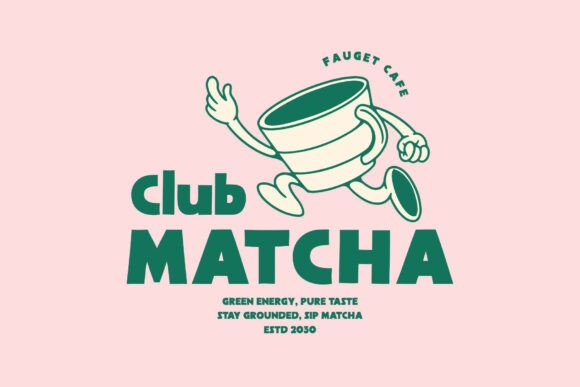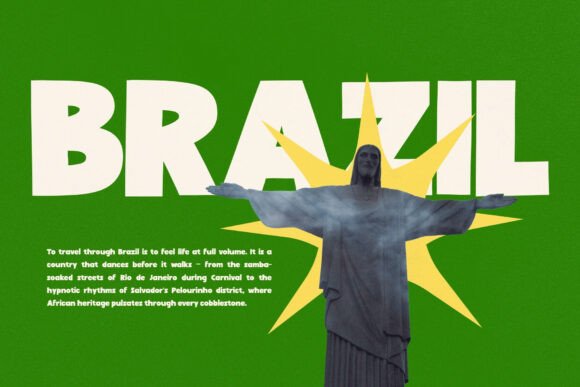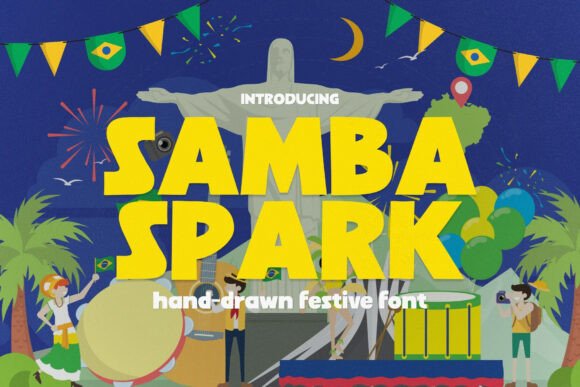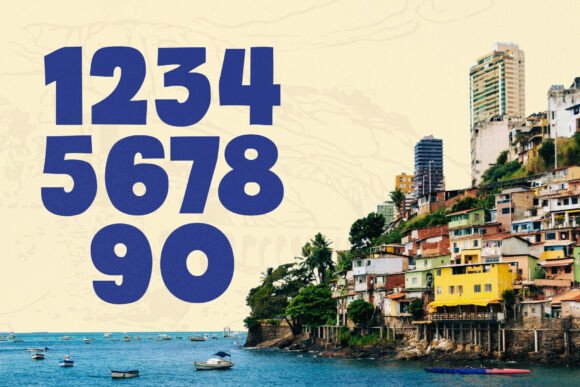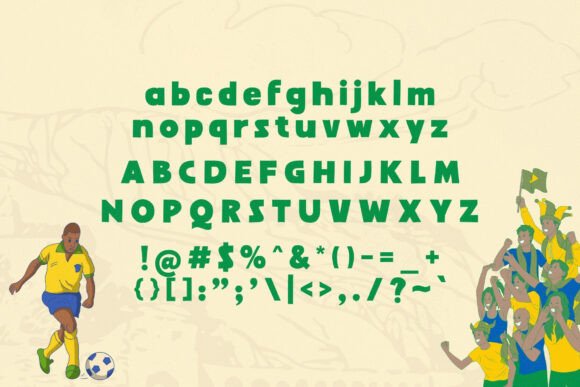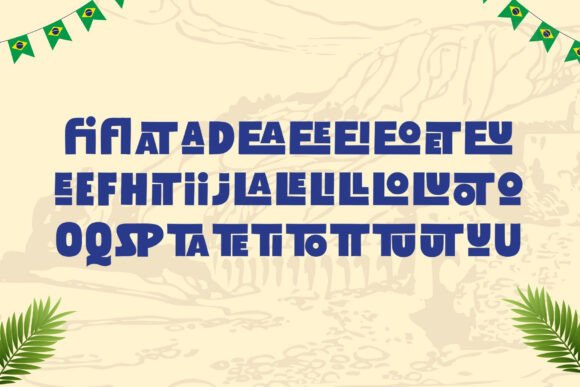
Introduction to Samba Spark Font
You’ve just landed the dream project – a music festival poster that needs to scream excitement and energy. You’re brainstorming ideas, sketching out concepts, and searching for the perfect design resource to bring it all together. That’s when you stumble upon Samba Spark Font – a vibrant, hand-drawn display typeface that radiates the spirit of global cultural celebrations.
With its lively personality and organic imperfections, Samba Spark Font is the perfect companion for designers looking to add a touch of celebration and creativity to their projects. Whether you’re working on a free download for a cultural festival, creating social media graphics for a music promotion, or designing packaging for a new product, this high-quality font is sure to bring energy and storytelling to every design.
Key Features of Samba Spark Font
- High-quality font with a unique, vibrant design perfect for creative projects.
Honest Review: Samba Spark Font
I recently had the chance to work with the Samba Spark Font, and I must say it’s been a great addition to my design resources. The free download was a pleasant surprise, and the transparent background made it easy to integrate into my creative project.
What works well is the high quality of the font, which really shines when used in bold, eye-catching headings. The unique design elements give it a modern feel that’s perfect for a wide range of creative projects.
- ✨ Great for bold, eye-catching headings
- ✨ Unique design elements add a modern feel
- ✨ High quality and easy to use
One limitation I noticed is that the font can be a bit overwhelming when used in large blocks of text. However, this can be easily mitigated by using it in conjunction with a secondary font.
Overall, I’m really impressed with the Samba Spark Font. It’s a valuable design resource that I’ll definitely be using again in the future. With its unique design and high quality, it’s a great addition to any designer’s toolkit.
- ⚠️ Can be overwhelming when used in large blocks of text
Tips for Getting the Most Out of the Samba Spark Font
For a high-quality design, use the Samba Spark Font on a transparent background to create a seamless and modern look.
Experiment with different font sizes, colors, and arrangements to add creativity to your project.
The Samba Spark Font is a great resource for any creative project, from social media graphics to business presentations.